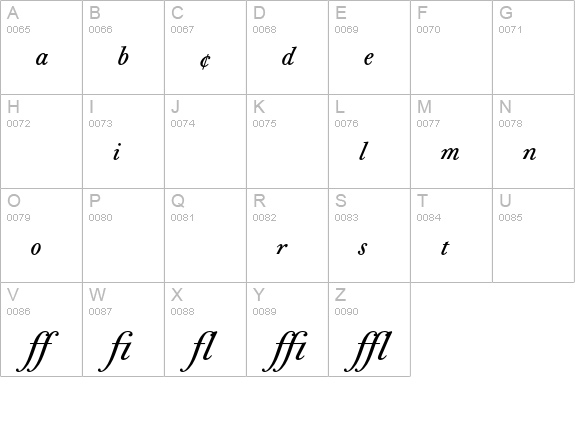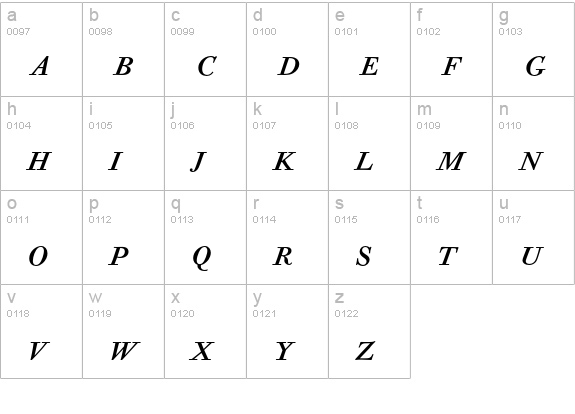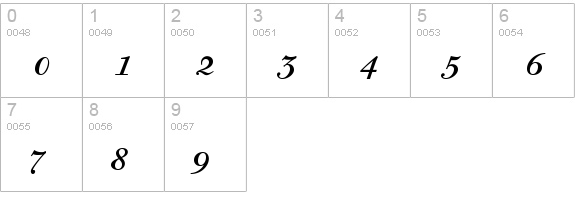
Bodoni Old Face BE Italic Expert is a distinctive, italic variant in the Bodoni typeface family \xE2\x80\x94 well suited to design and typography projects.
Bodoni Old Face BE Italic Expert font exudes elegance and sophistication with its timeless design. The italic style adds a touch of flair and sophistication, making it perfect for adding a touch of class to any project. The expert version of this font is meticulously crafted with intricate details that showcase the beauty of the Bodoni typeface. What sets this font apart is its versatility and ability to convey a sense of refinement and luxury. Whether used for titles, headings, or body text, Bodoni Old Face BE Italic Expert font commands attention and conveys a sense of sophistication. The best part is that this exquisite font is available for free download at FontsMarket.com. So, you can easily add a touch of elegance to your designs without breaking the bank. Don't miss out on the opportunity to elevate your projects with this stunning and timeless typeface.